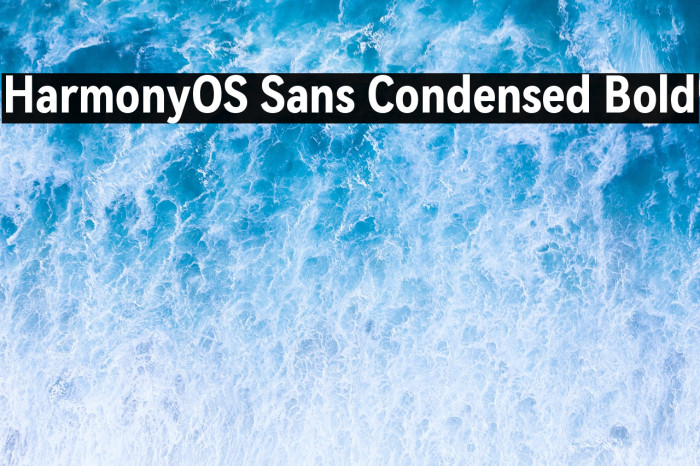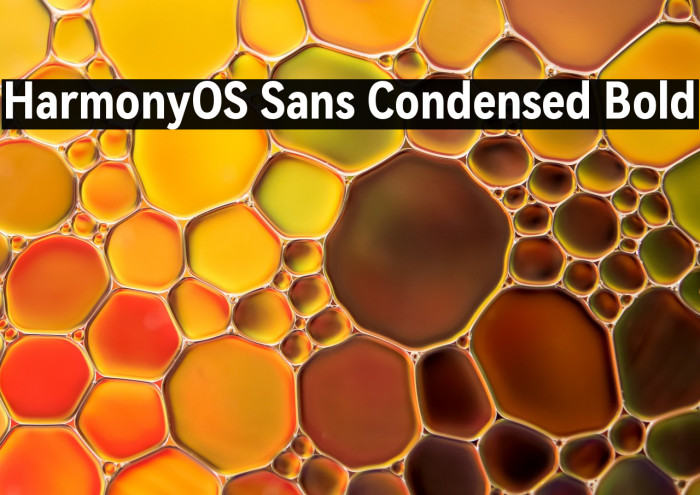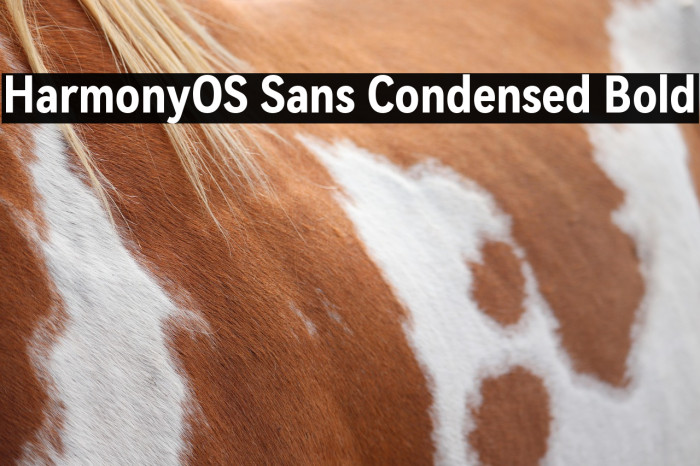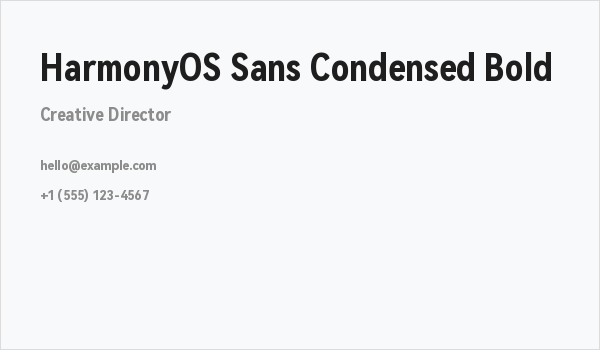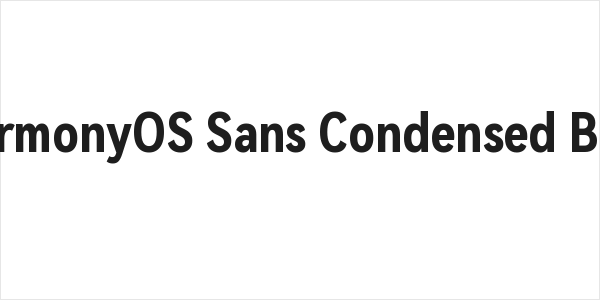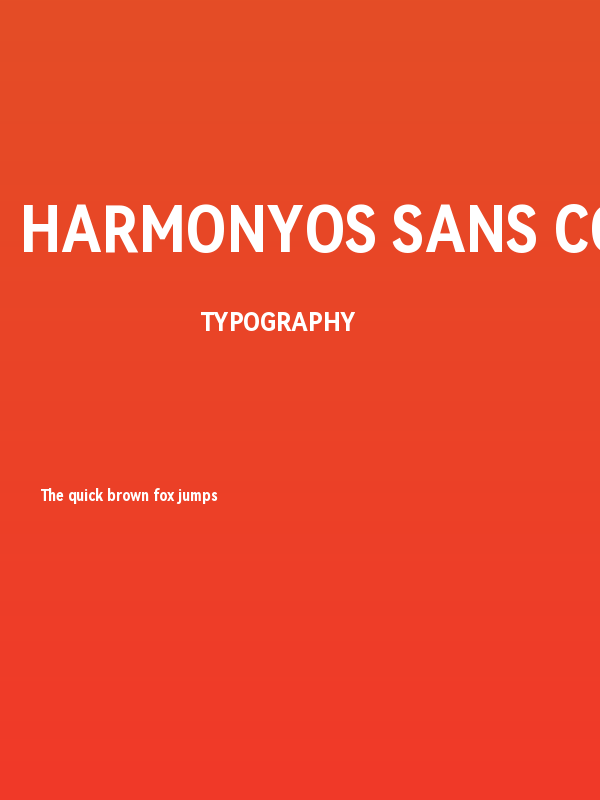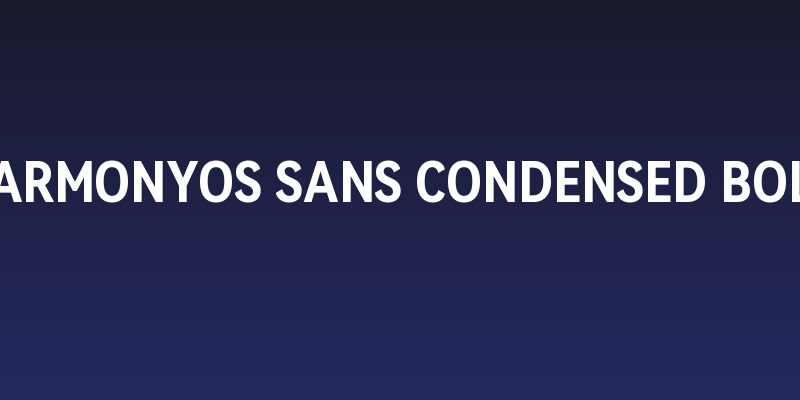
HarmonyOS Sans Condensed Bold Font
HarmonyOS Sans Condensed Bold Description
This typeface features a clean and modern sans-serif design with a condensed structure that maximizes space efficiency. The bold weight provides a strong visual impact, making it suitable for attention-grabbing headlines and titles. The characters are well-proportioned, with a uniform stroke width that ensures readability across various sizes. The font includes a complete set of uppercase and lowercase letters, numerals, and a variety of special characters, offering versatility for different design needs. Its simplicity and clarity make it ideal for digital interfaces and print media, where legibility is paramount.
| Use Case | Headlines, Logos, Digital Interfaces |
| Proposed Projects | Ideal for web design, app interfaces, advertising, and branding projects requiring a modern and bold aesthetic. |